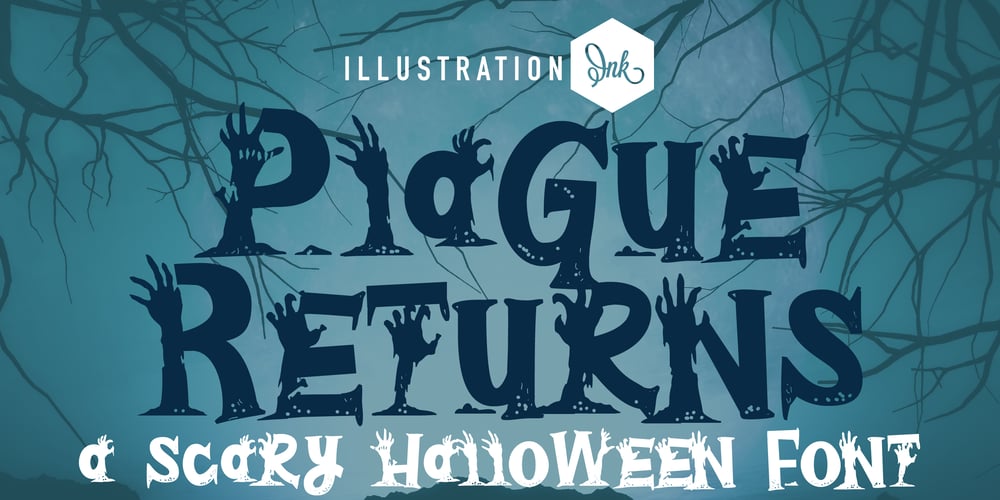
ZP Plague Returns Font Family was designed by Illustration Ink and published by Illustration Ink. ZP Plague Returns contains 1 styles and family package options. This hand-crafted font has zombie-esque lettering with hands coming from the ground and dirt piles throughout. A hand-crafted font is a font that is designed to look like it was written by hand. It is often used for invitations, greeting cards, and other items. Handwritten fonts can be either formal or informal, and they can be used for a variety of purposes.Some of the characteristics of handwritten fonts include: The letters are not perfectly uniform in size or shape. There may be slight variations in the spacing between letters and words. The font may have a “wiggly” or “squiggly” appearance. The font may be difficult to read at small sizes. Handwritten fonts can be a great way to add a casual touch to your designs. They can also be used to create a sense of nostalgia or whimsy. However, it is important to choose a handwritten font that is appropriate for the project you are working on. A formal handwritten font may not be appropriate for a casual invitation, while an informal handwritten font may not be appropriate for a corporate document.